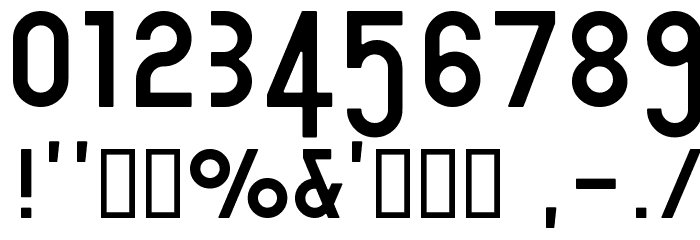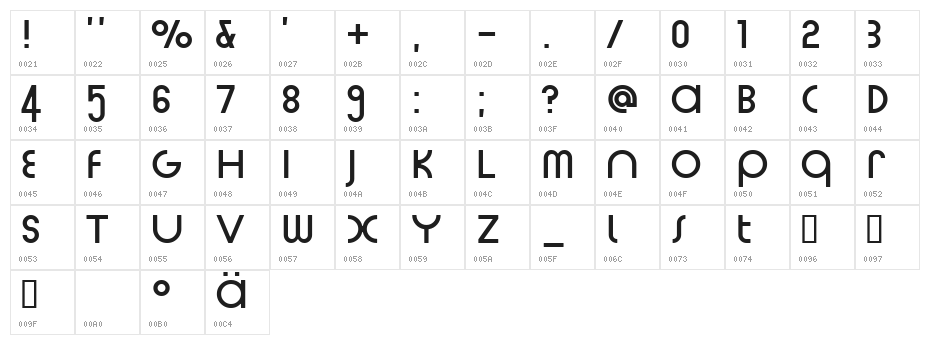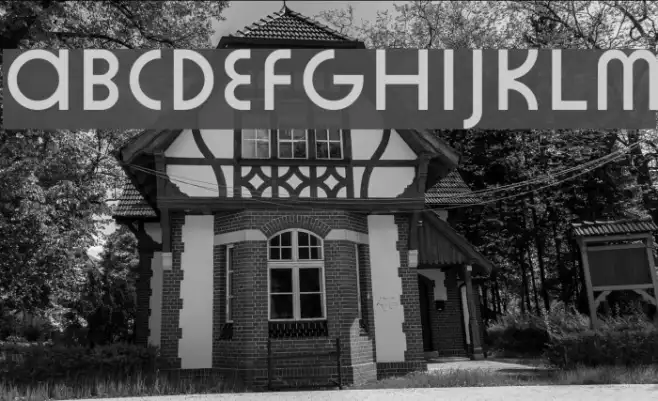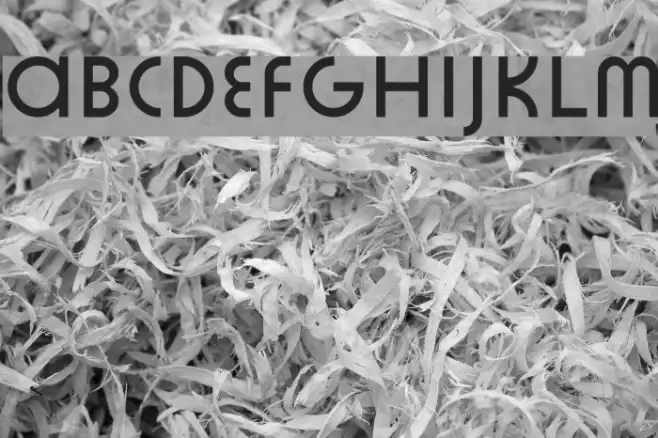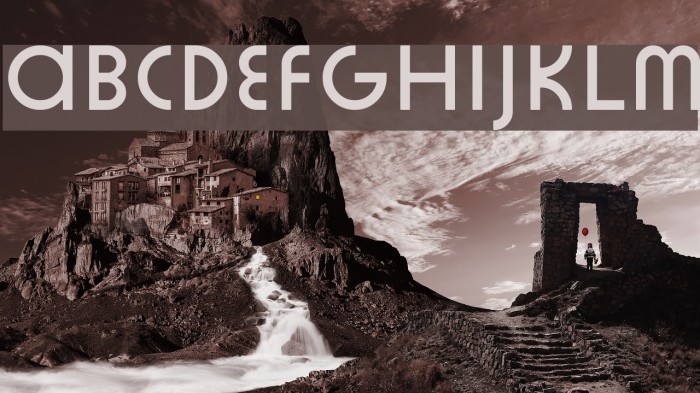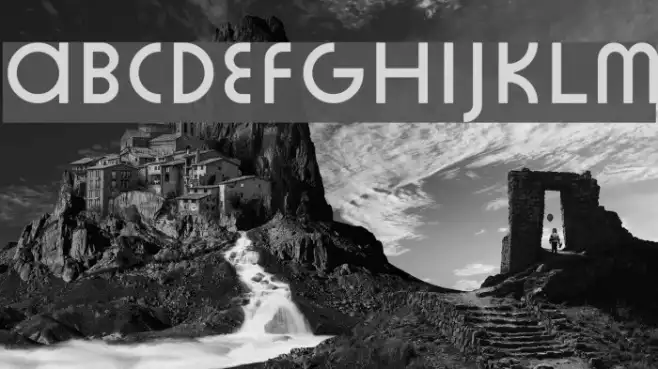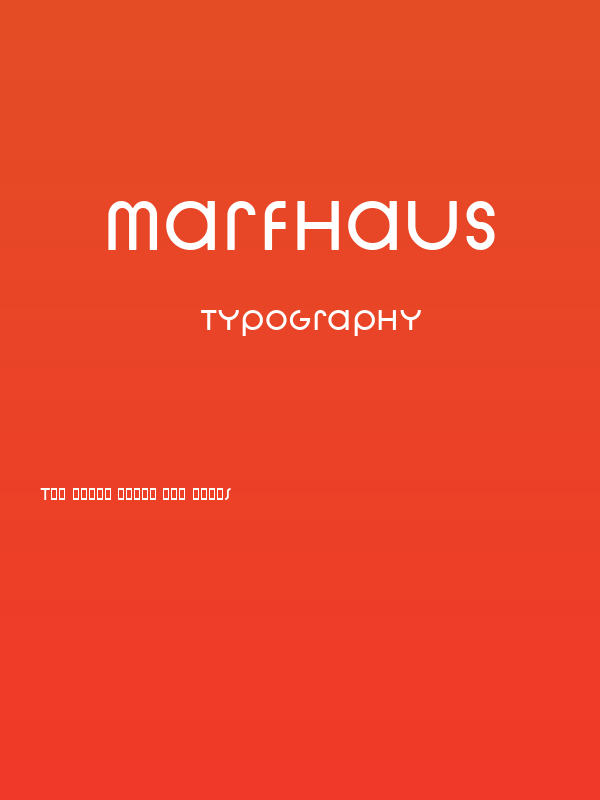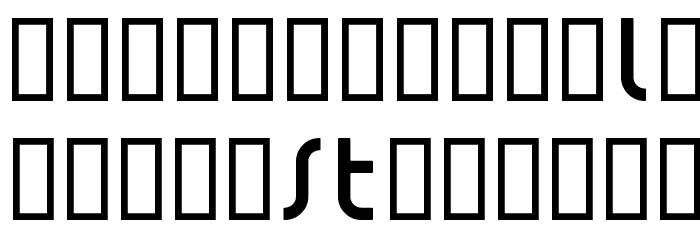
Marfhaus Font
Marfhaus Description
This font features a modern and geometric design with clean, rounded edges and a uniform stroke width. The characters are bold and have a consistent weight, creating a strong visual impact. The uppercase letters are slightly taller than the lowercase, maintaining a balanced appearance. The numbers are clear and legible, matching the style of the alphabet. Special characters are well-integrated, complementing the overall aesthetic. The font's simplicity and clarity make it versatile for various design applications.
| Proposed Projects | Ideal for branding, advertising, headlines, and digital interfaces where a modern and clean look is desired. |